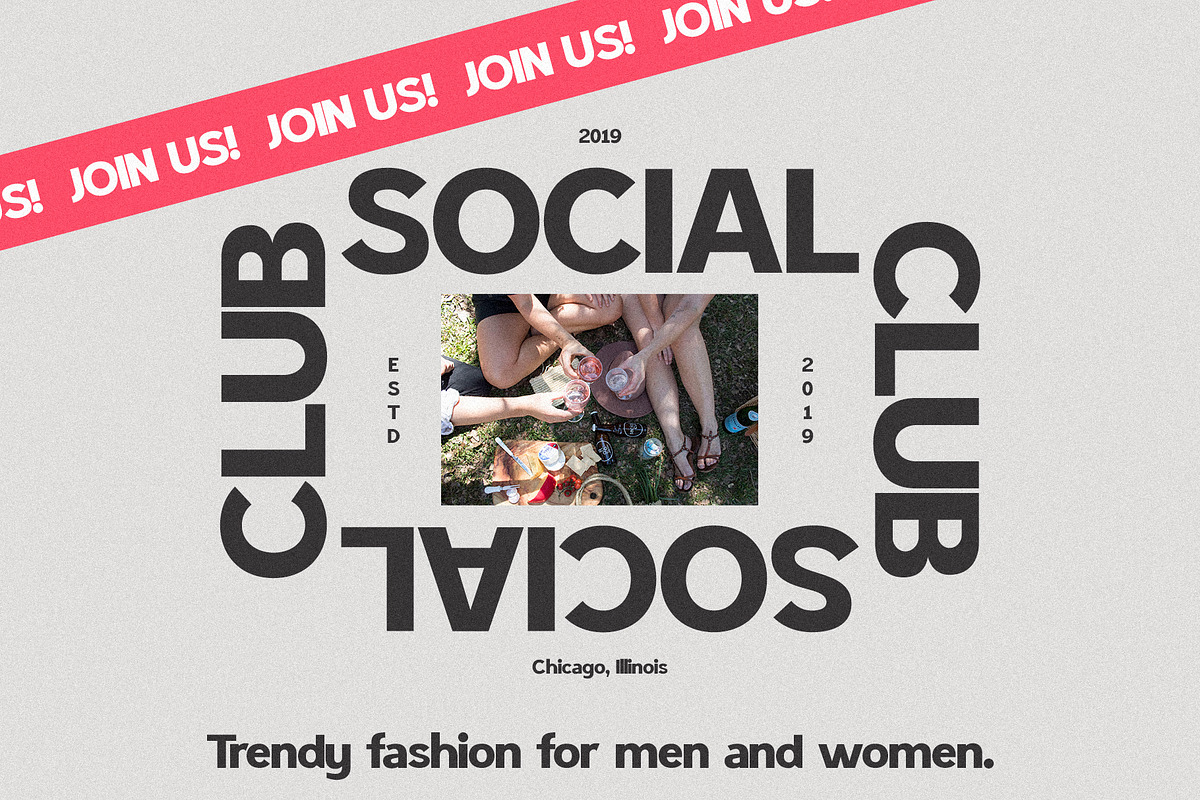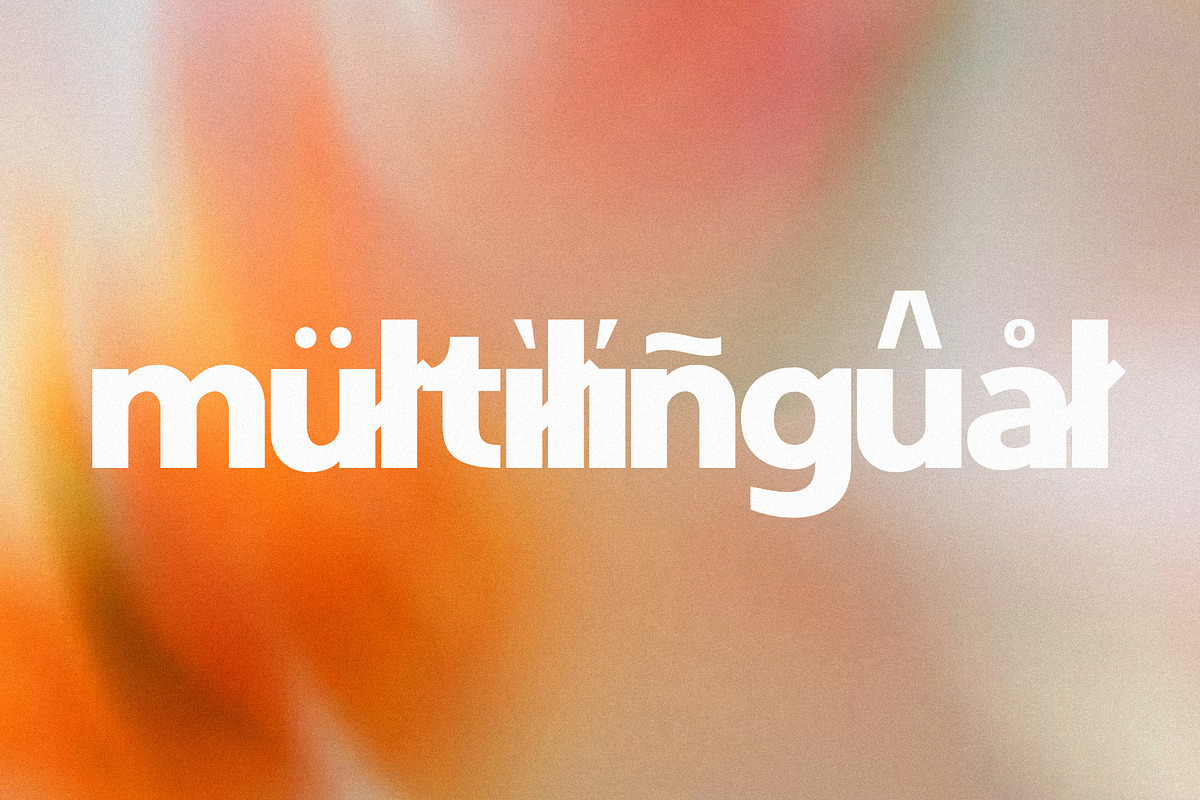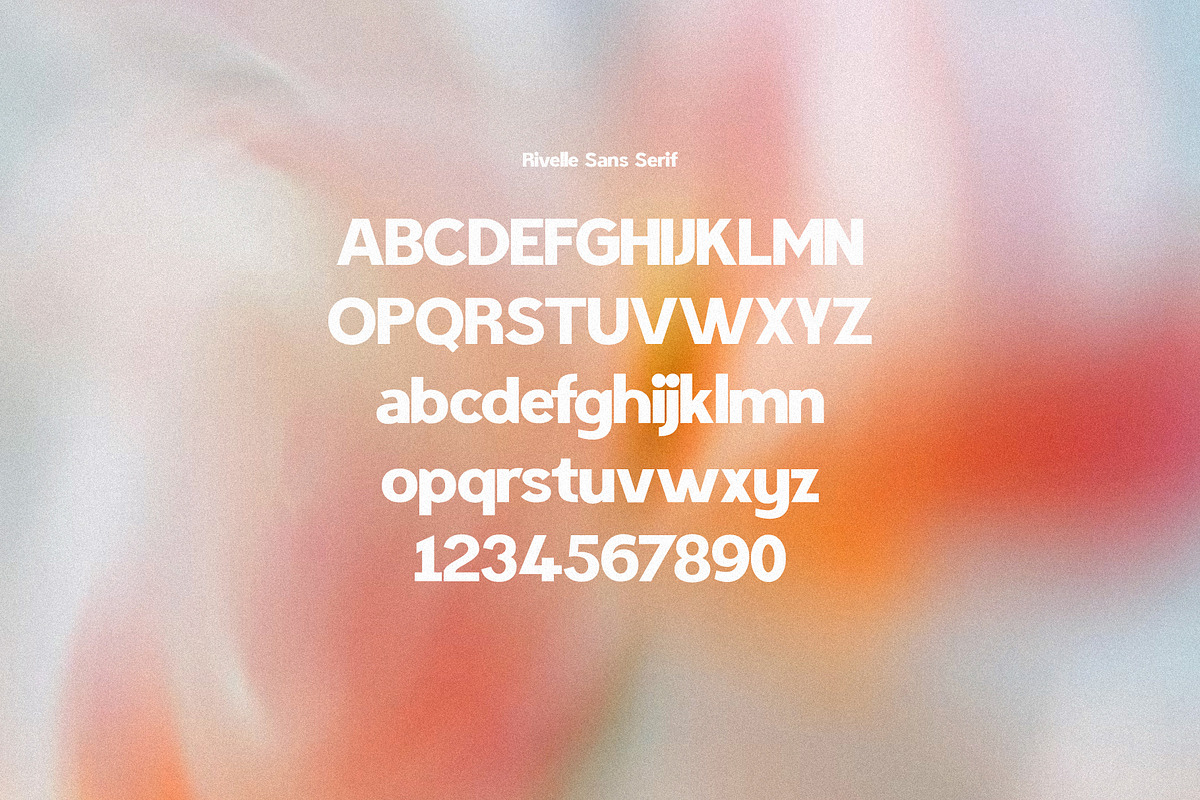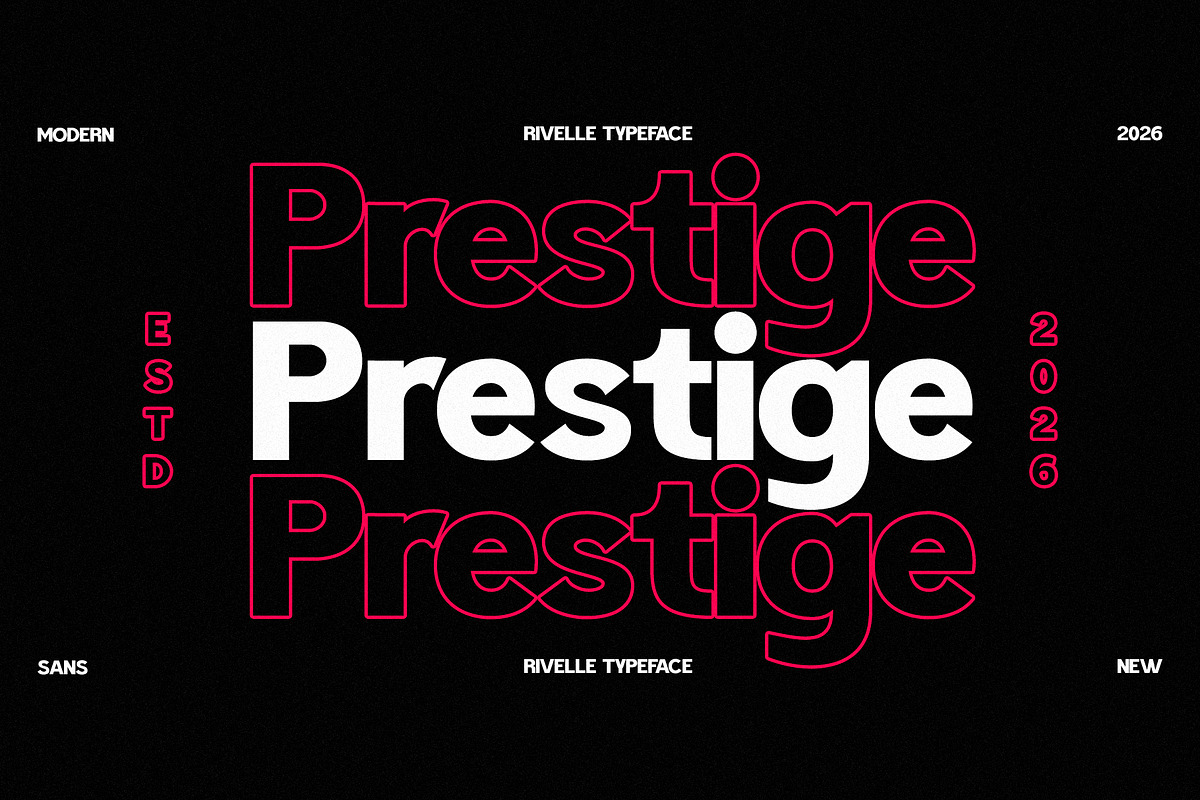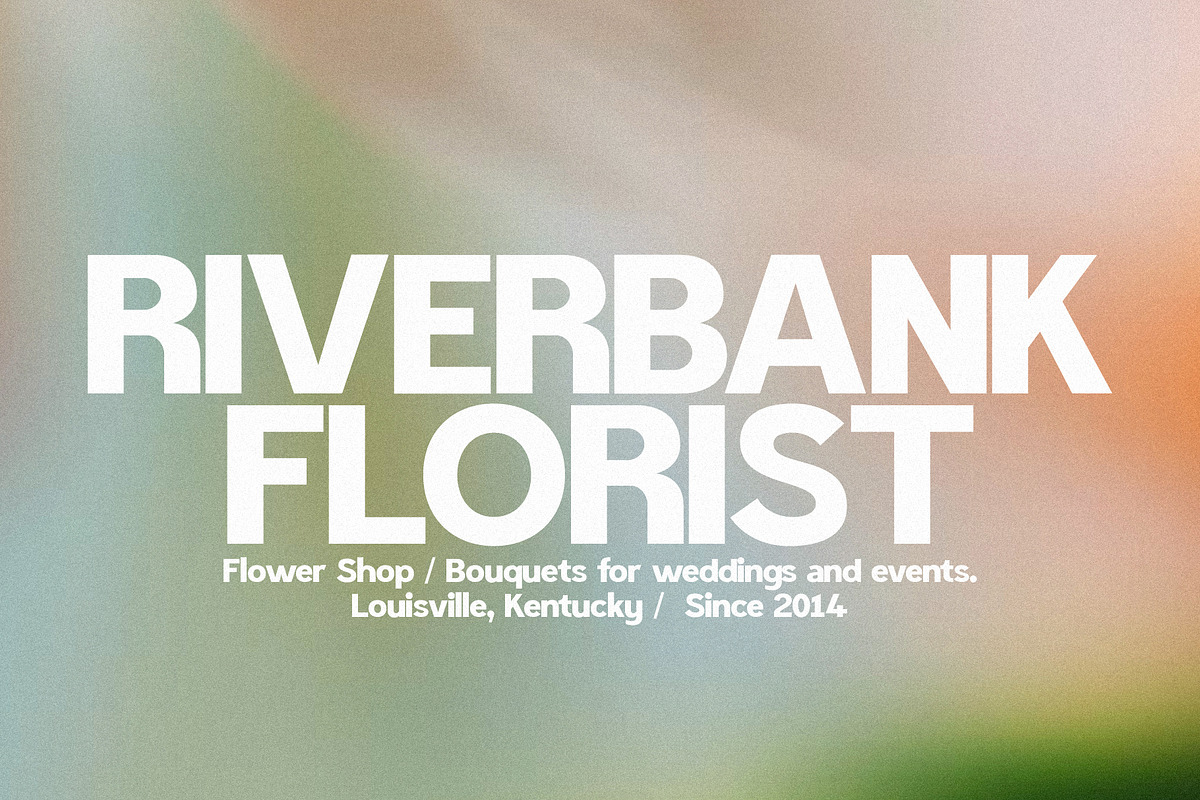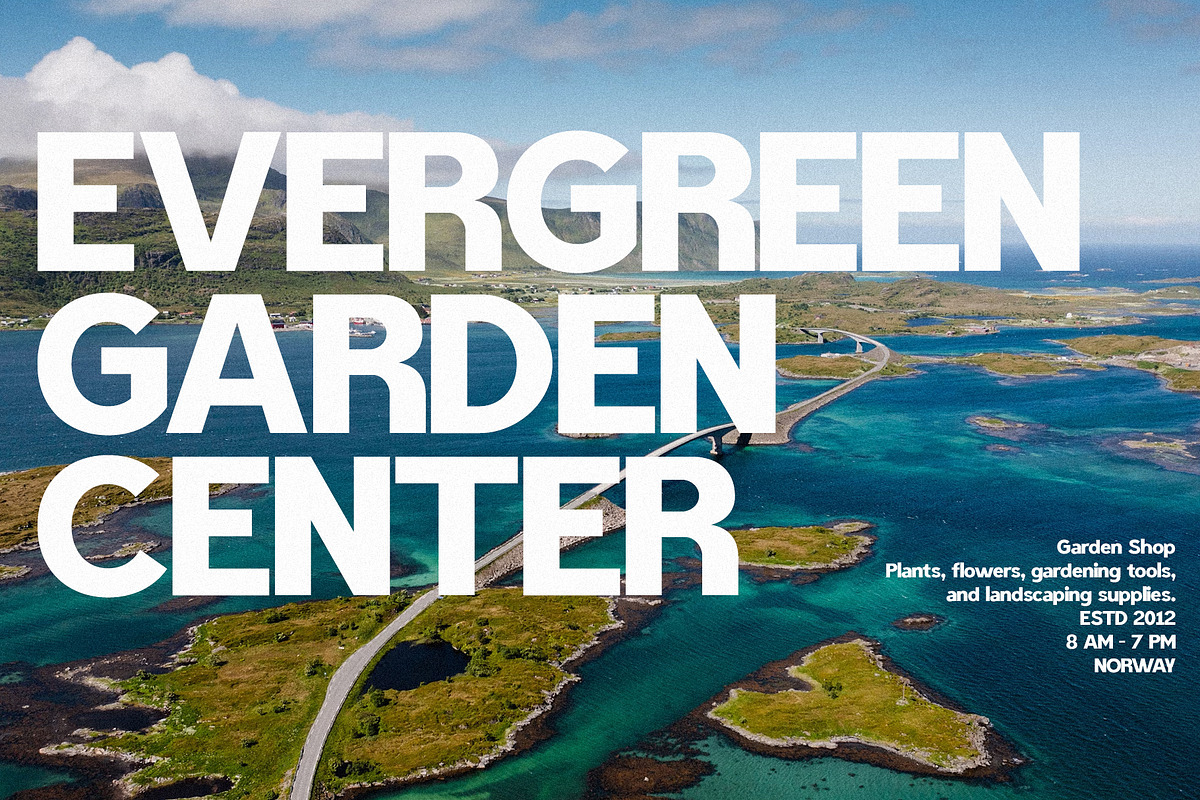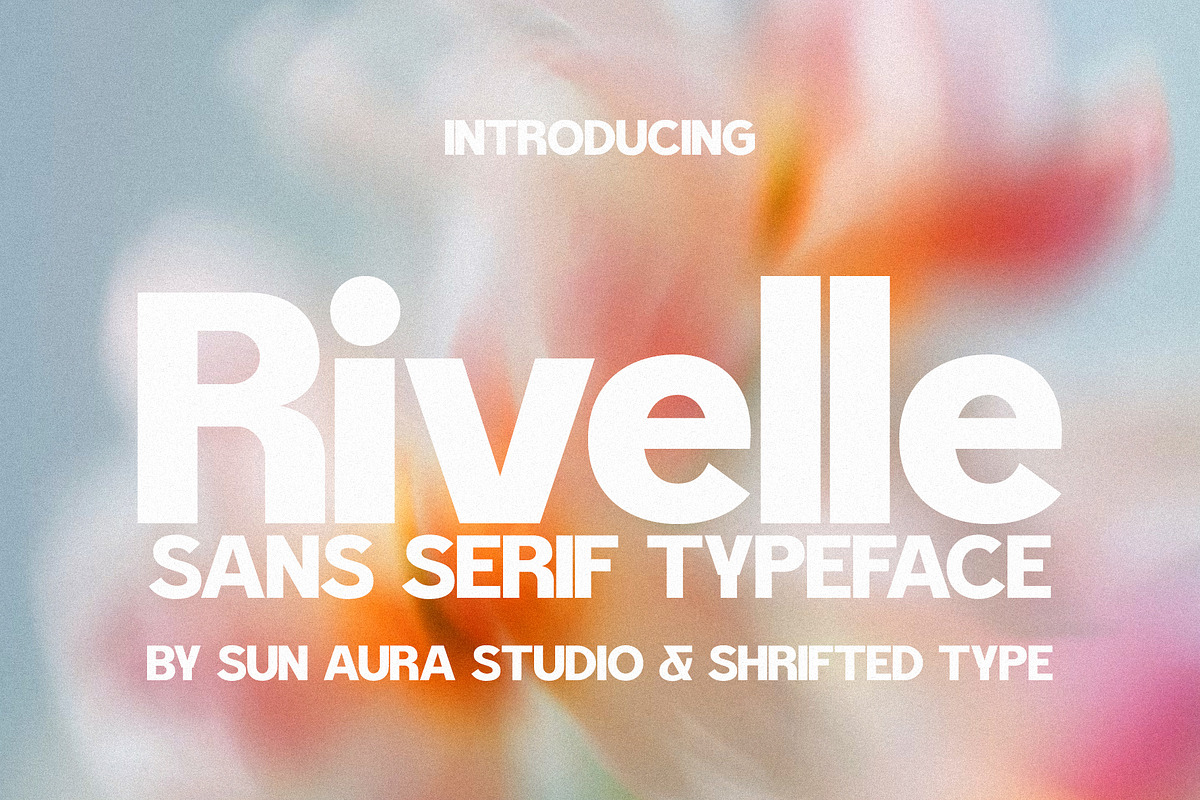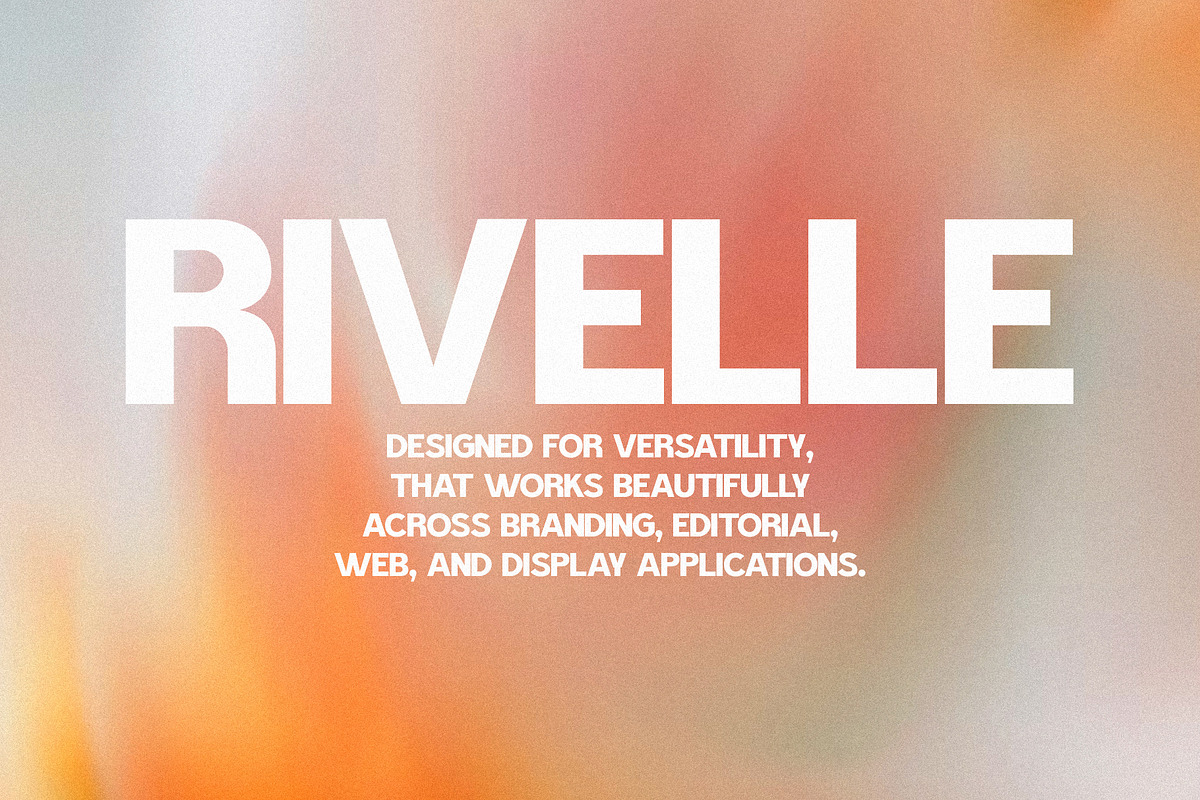
Rivelle - Modern Sans Serif
Rivelle is a modern sans serif typeface that blends minimalist aesthetics with confident character. Featuring clean geometry, balanced proportions, and carefully crafted details, it delivers a polished, contemporary look while maintaining excellent readability. Whether you're creating a premium brand identity, designing digital experiences, or producing stylish print work, Rivelle offers the flexibility and clarity needed to make every project feel refined, fresh, and timeless.